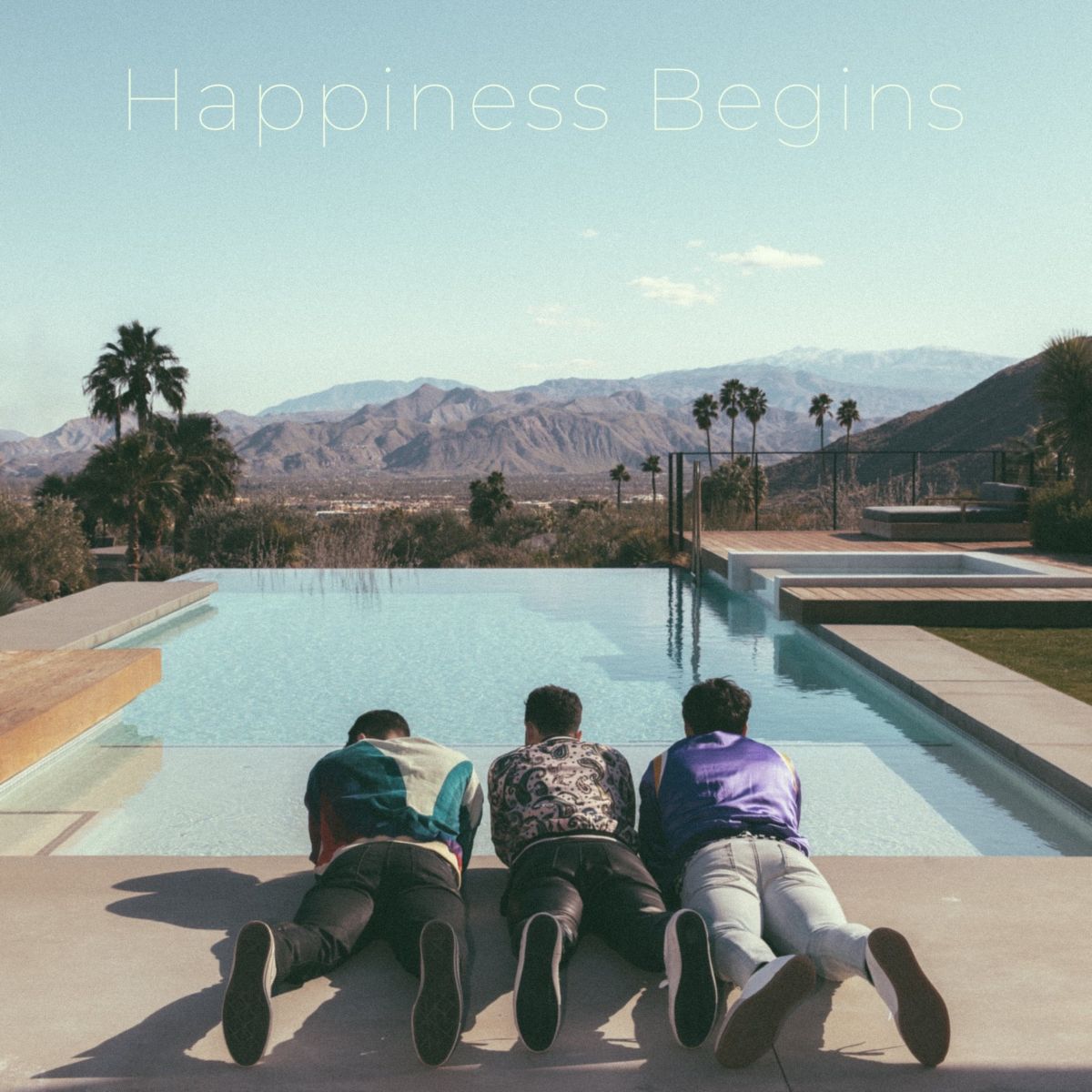
Happiness Begins Font
Fonts in UseHappiness Begins is the fifth studio album by the American pop band Jonas Brothers, released in 2019. The album marks their return to music after a six-year hiatus and features upbeat pop anthems with themes of love and self-discovery.